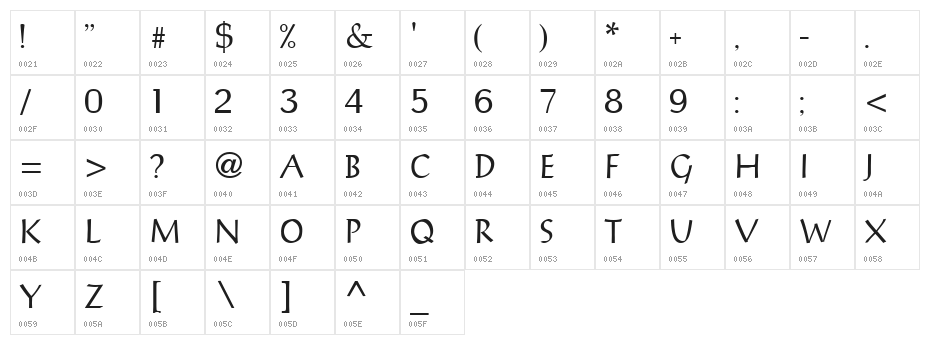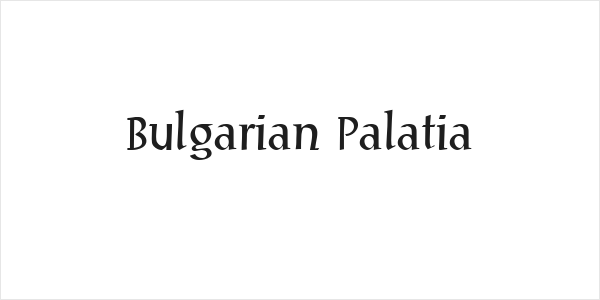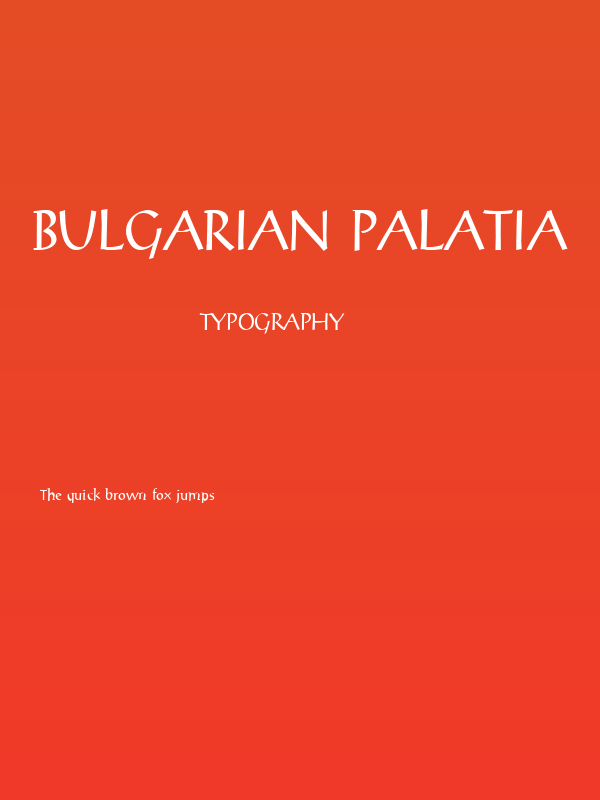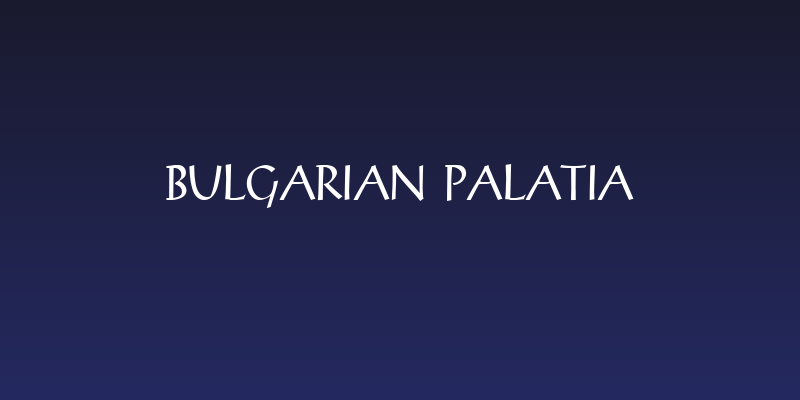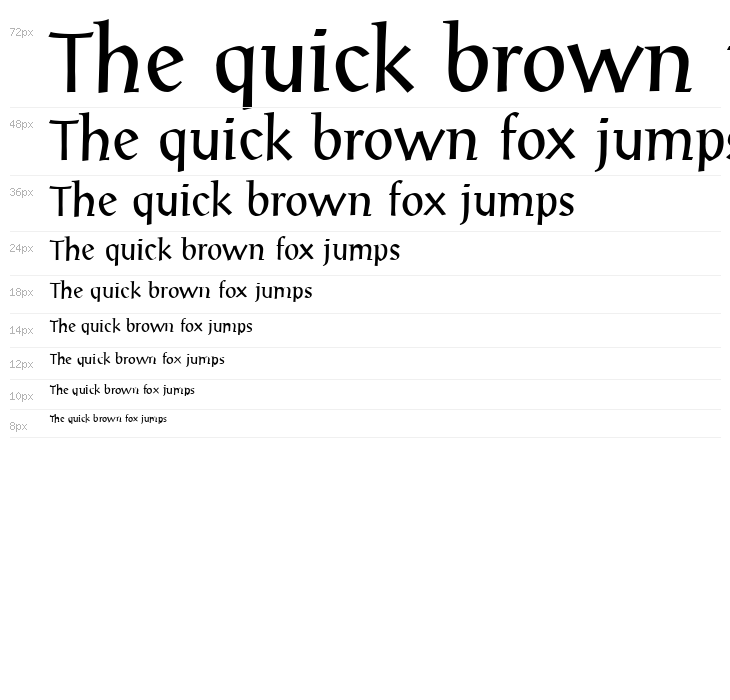
Bulgarian Palatia Font
Bulgarian Palatia Description
This font features a distinctive serif style with elegant, flowing lines and a slightly condensed appearance. The uppercase letters exhibit a traditional yet modern flair, with sharp serifs and a subtle contrast in stroke thickness. The lowercase letters maintain a consistent style, offering a harmonious blend of curves and angles. Numbers are clear and legible, with a classic design that complements the overall aesthetic. Special characters are well-integrated, providing versatility for various design needs. The font's refined elegance makes it suitable for both formal and creative applications.
Overall StyleClassic
Proposed ProjectsThis font is perfect for projects such as wedding invitations, luxury branding, editorial design, and high-end product packaging.